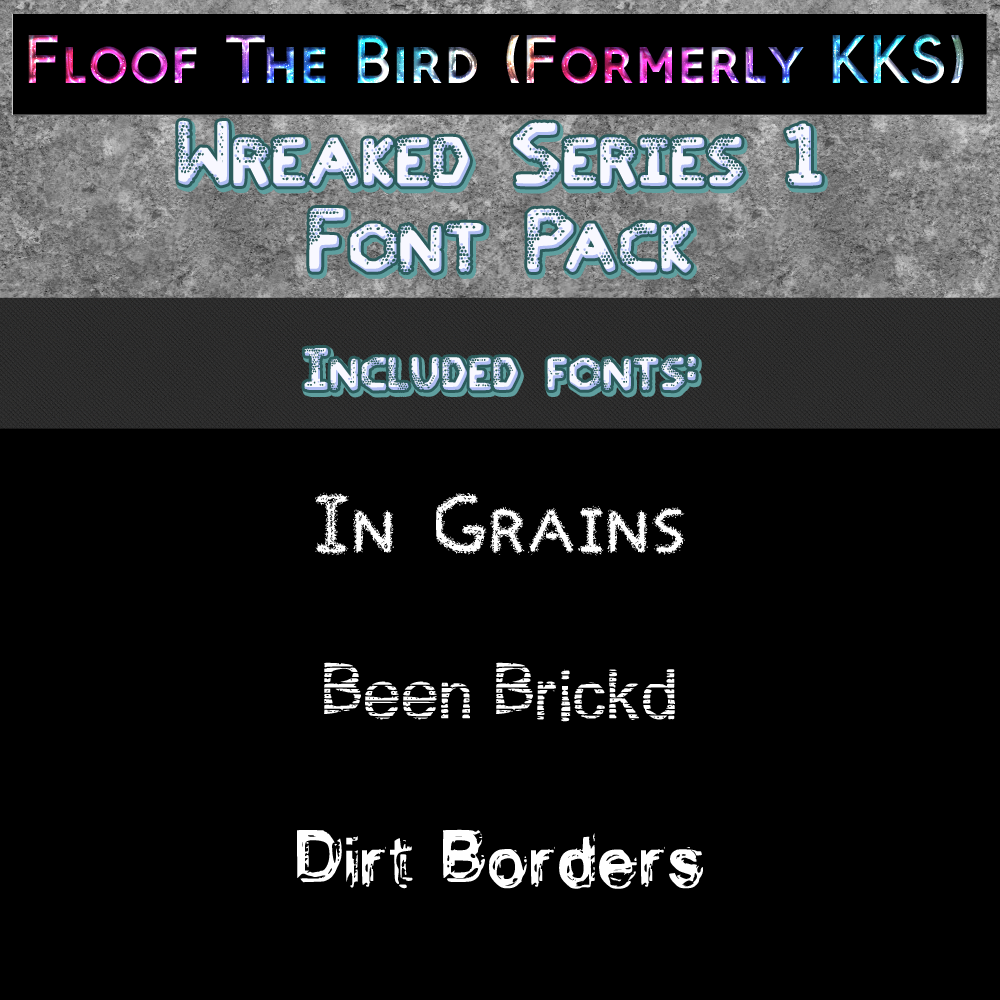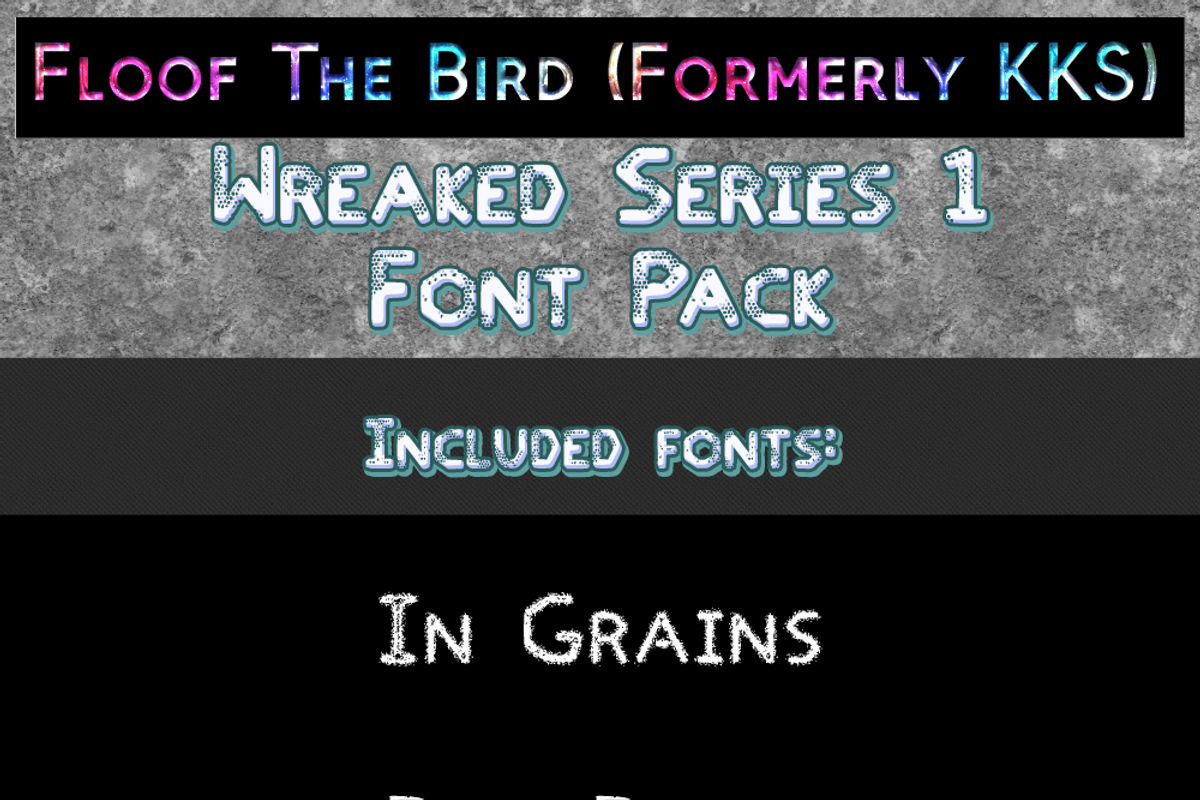
Wreaked Series 1 font pack by Floof
This pack includes 3 fonts in both Opentype and Truetype formats. These letters have been wreaked! Great for when you need some messed up, grungy text that is still rather readable.